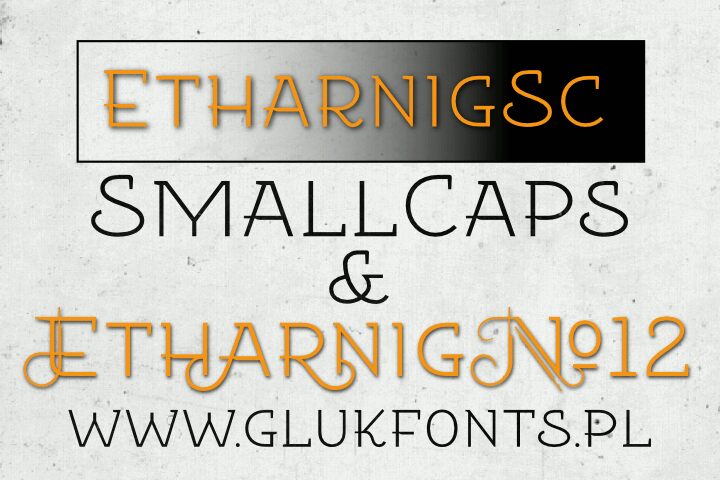
Etharnig No 12 by Gluk is a free retro decorative display font. Fine monoline strokes meet sweeping loops, curled extensions, and sharp crossbars, giving the capitals the look of custom ornamental lettering.
Designers drawn to vintage glamour will find it especially suited to posters and event identities. It can also turn perfume packaging or an album cover into something theatrical and period-minded. The extravagant curls make most sense in settings inspired by cabaret, jazz, or early cinema.
EtharnigNo12